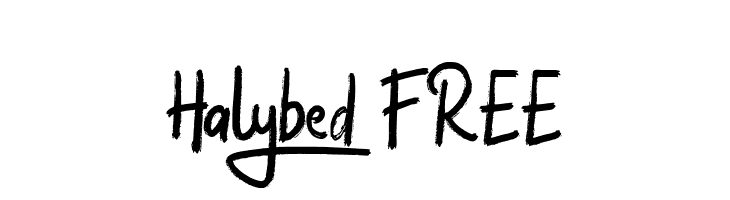
A bold, brush-textured font with a playful, spooky vibe.
A lively and elegant script font with smooth, interconnected curves.
A lively and expressive script font with fluid, dynamic strokes.